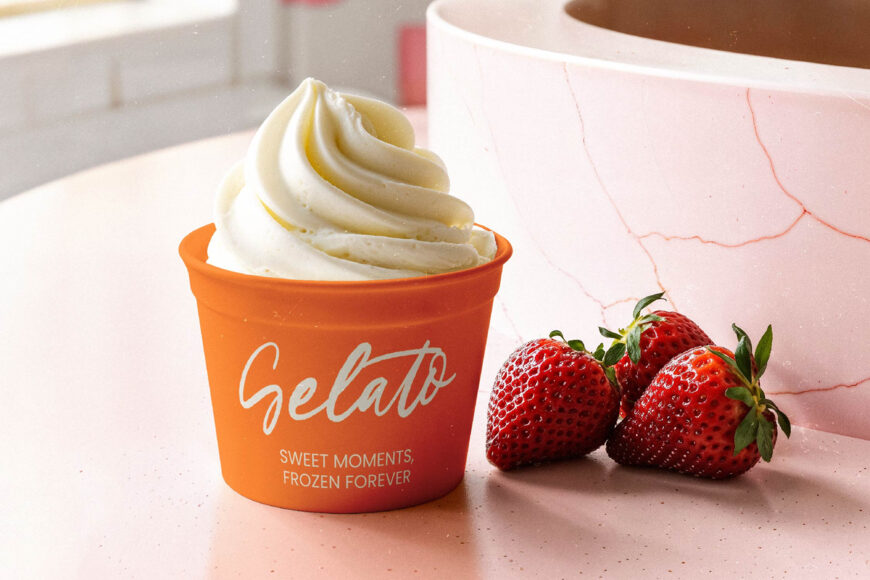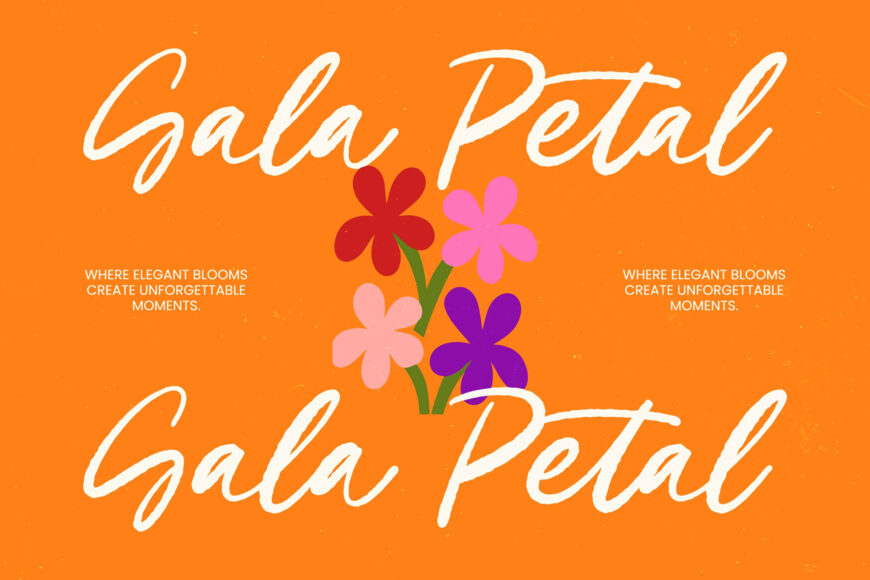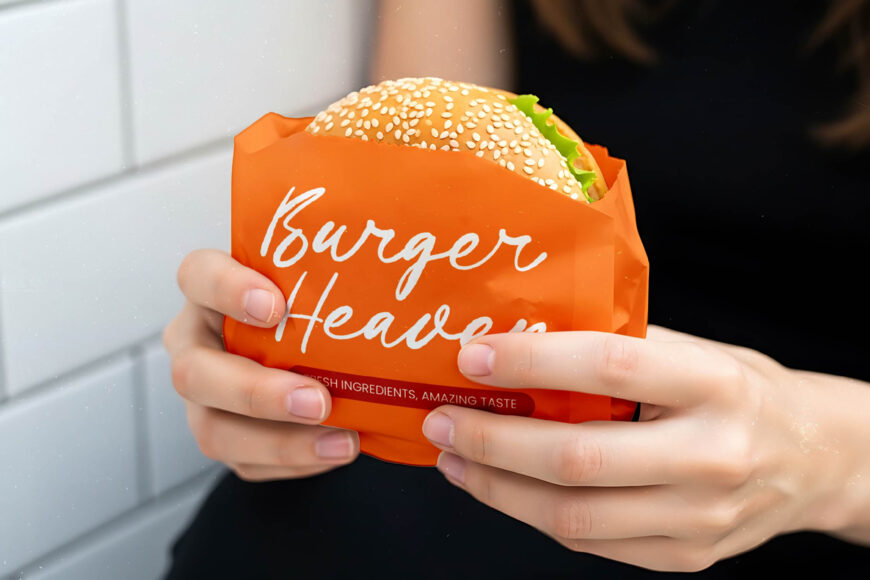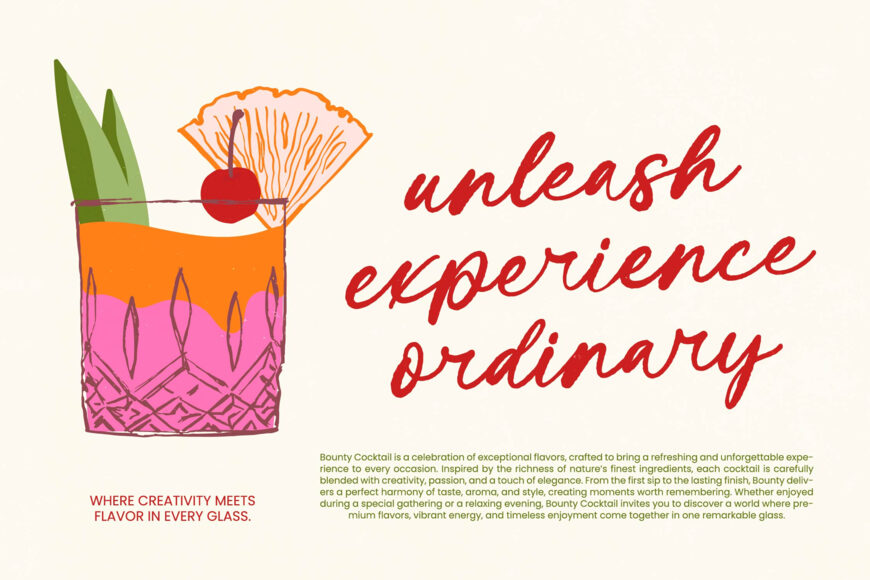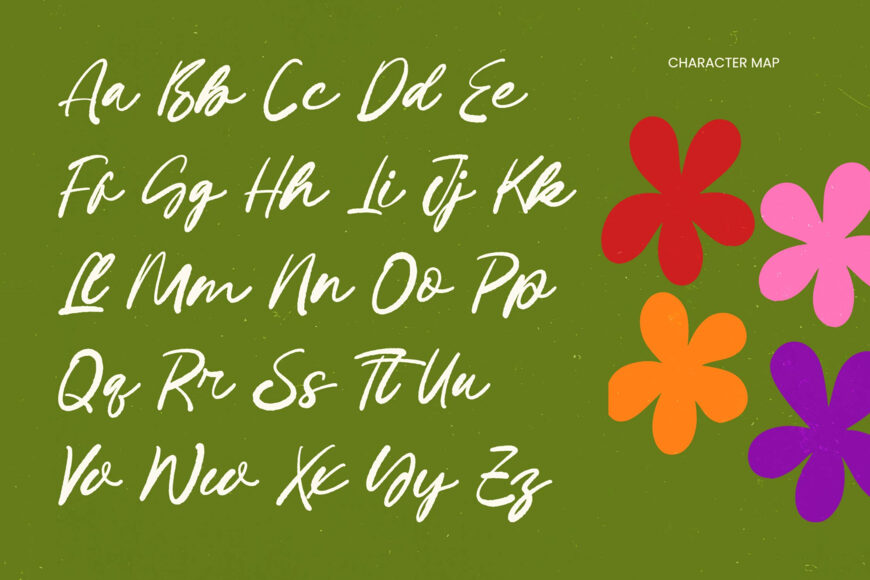
Bentaris Font
Bring your creative vision to life with Bentaris, a premium handwritten ink font by Letterena Studios. Its fluid, high-contrast strokes and organic textures create an authentic artistic feel with a touch of luxury.
Balancing precision and spontaneity, it includes 172 ligatures, 26 alternates, and expressive swashes for dynamic, professional lettering that resembles real ink. Bentaris is ideal for luxury branding, editorial layouts, boutique packaging, and elegant wedding stationery—anywhere a warm, human aesthetic can foster an emotional connection.